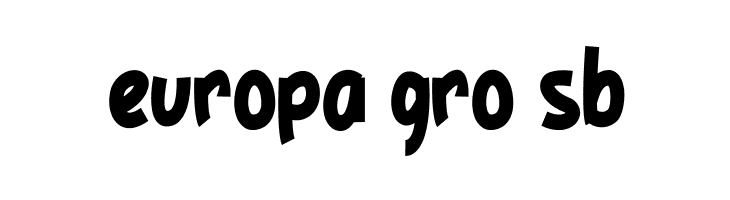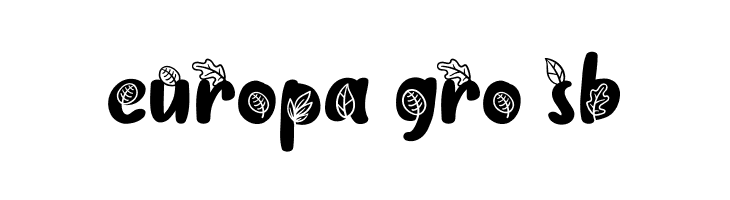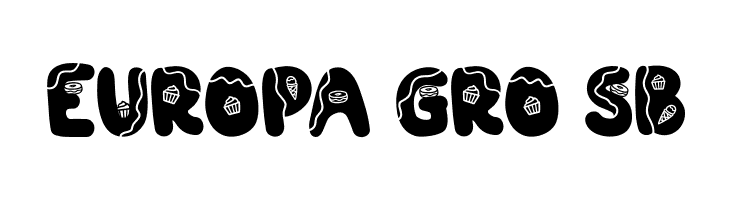
( Fonts by Vunira Design )
A bold, decorative font with leaf motifs for a playful, organic look.
( Fonts by Vunira Design )
A playful, camping-themed decorative font with bold characters and whimsical illustrations.
( Fonts by Vunira Design )
A decorative font with camping-themed illustrations integrated into each character.
( Fonts by Vunira Design )
A playful, dessert-themed decorative font with bold, rounded characters.
( Fonts by Vunira Design )
A playful, dessert-themed decorative font with cupcake illustrations.
( Fonts by Vunira Design )
A bold, decorative font with floral embellishments on each character.
( Fonts by Vunira Design )
A bold, decorative font with floral accents on each character.
( Fonts by Vunira Design )
A bold, music-themed decorative font with integrated musical elements.
( Fonts by Vunira Design )
A bold, music-themed decorative font with integrated musical icons.
( Fonts by Vunira Design )
A bold, decorative font with a unique striped pattern and strong outlines.